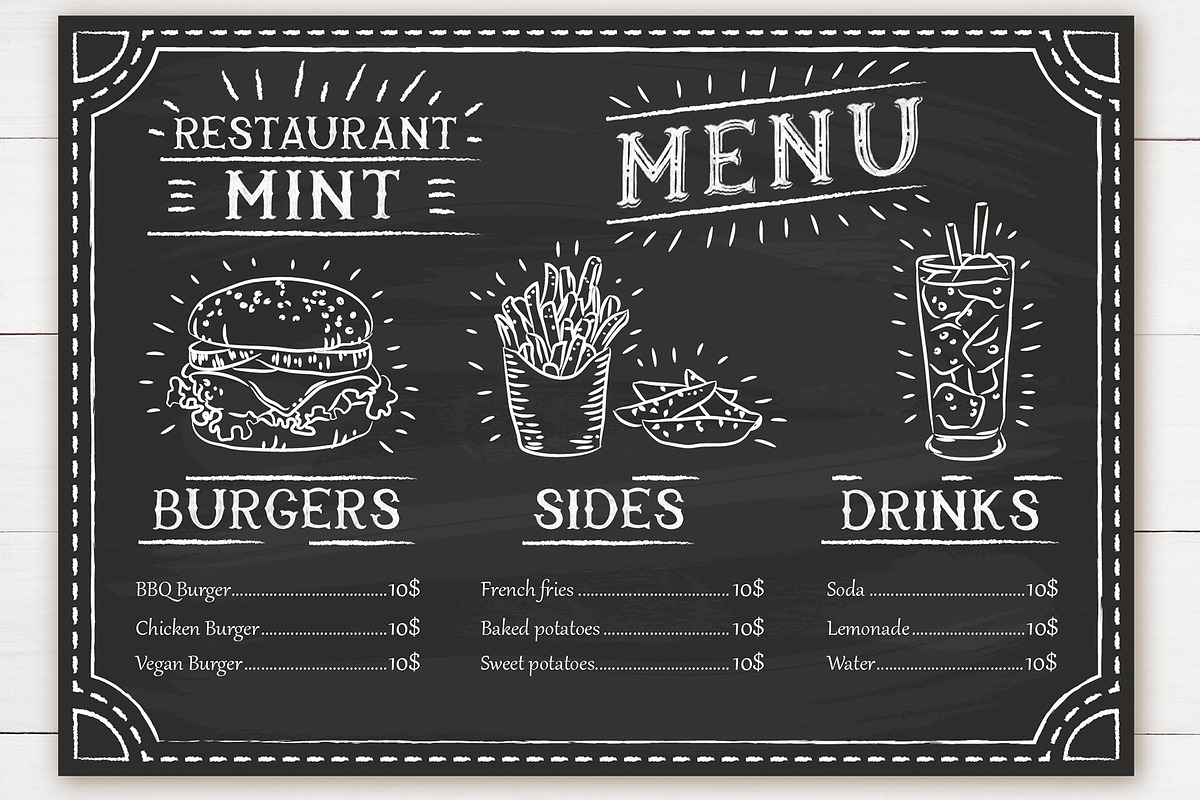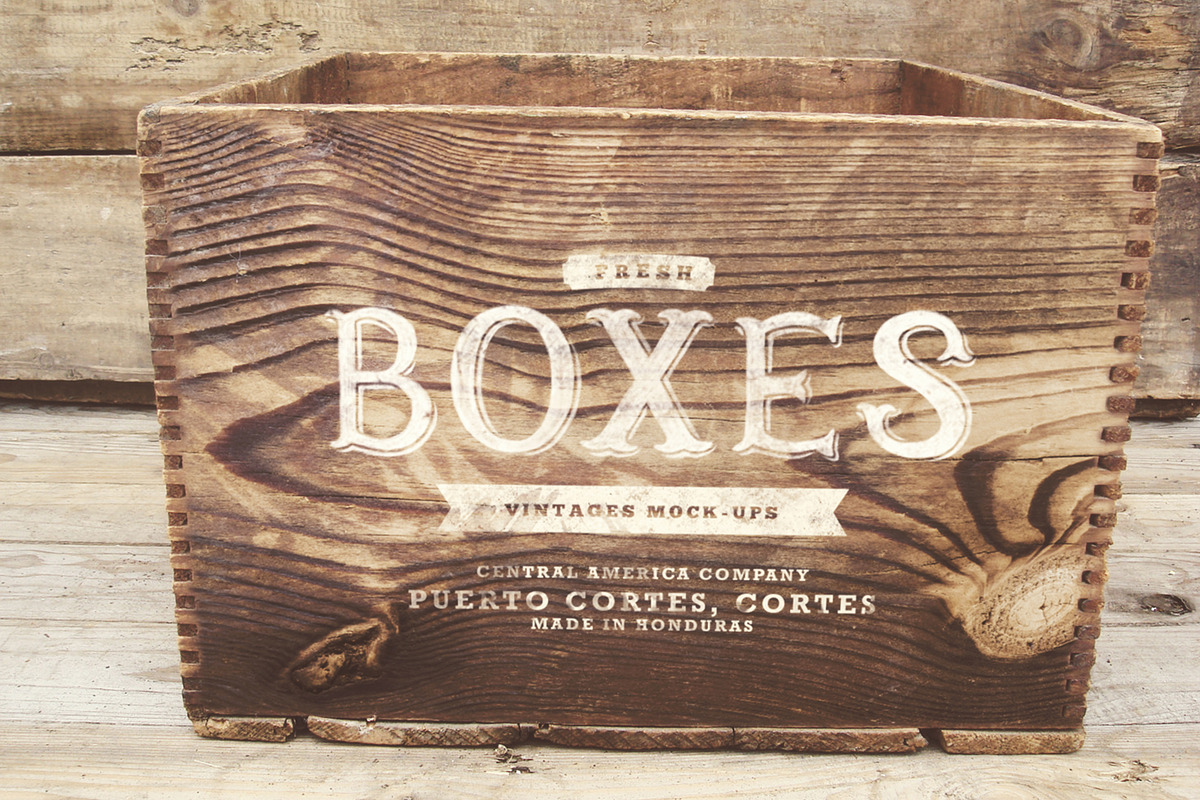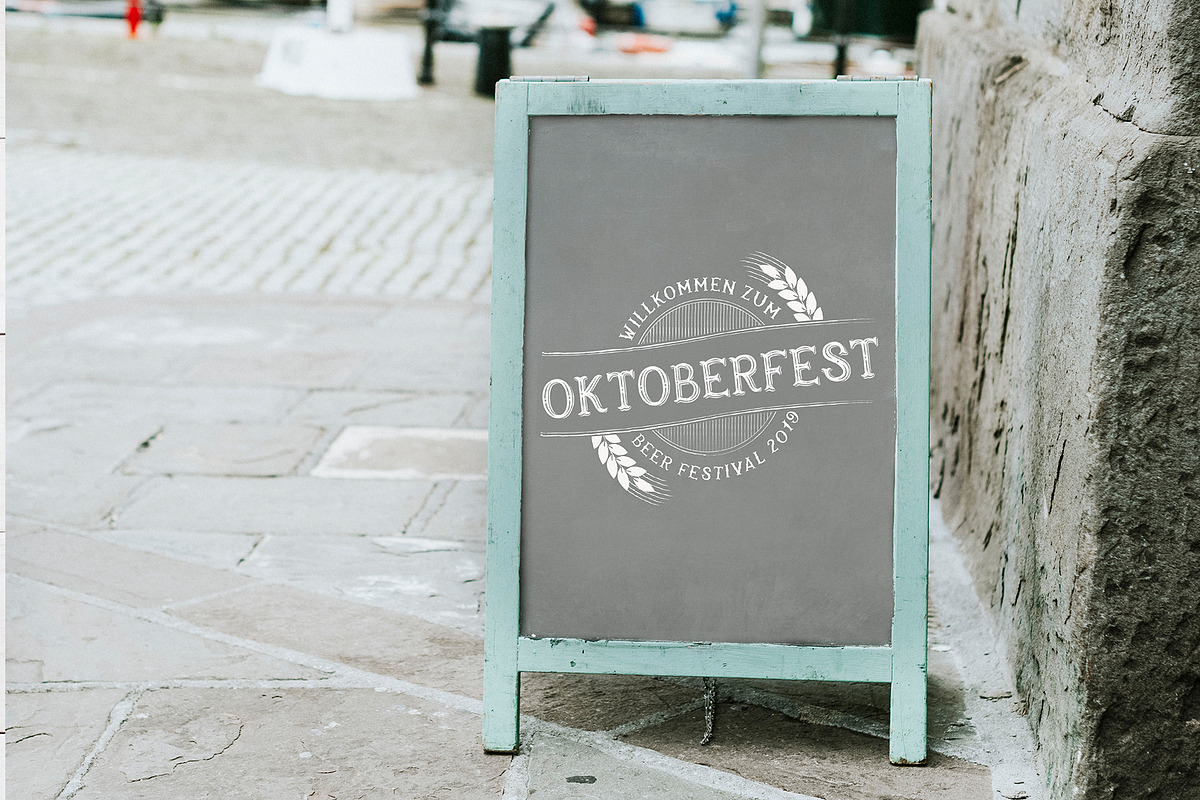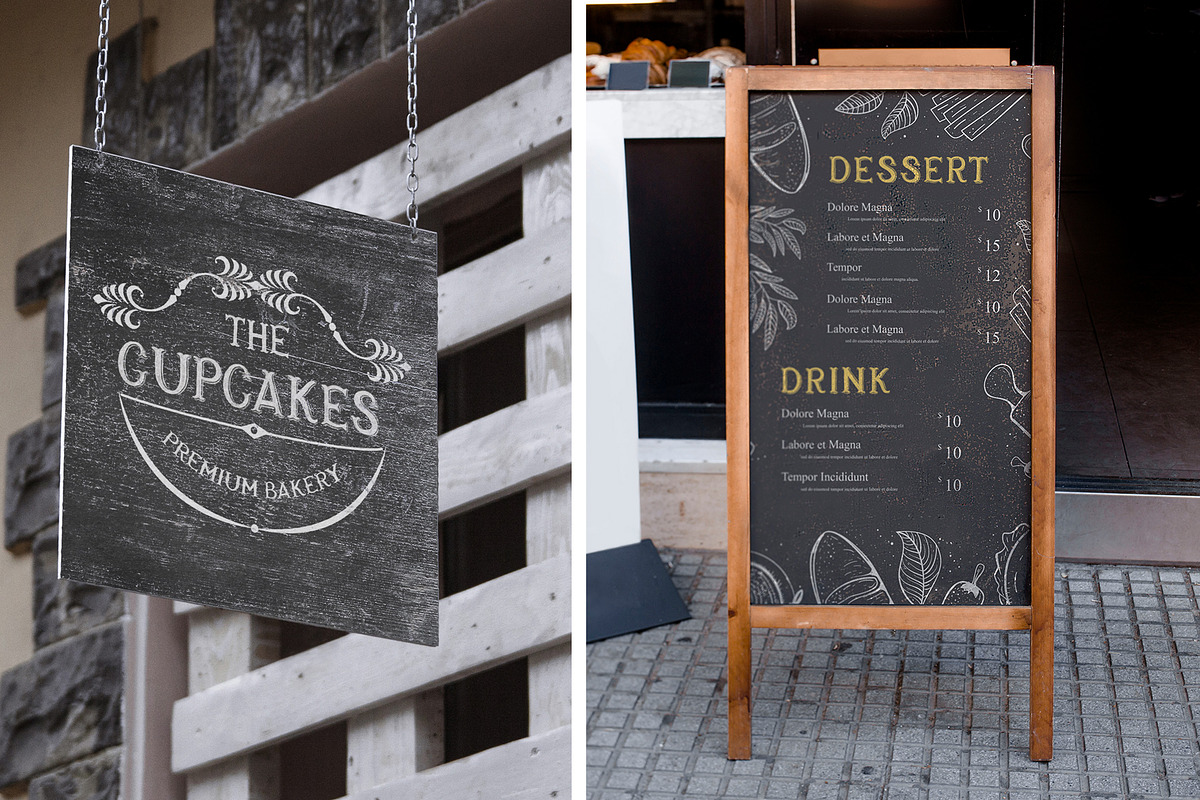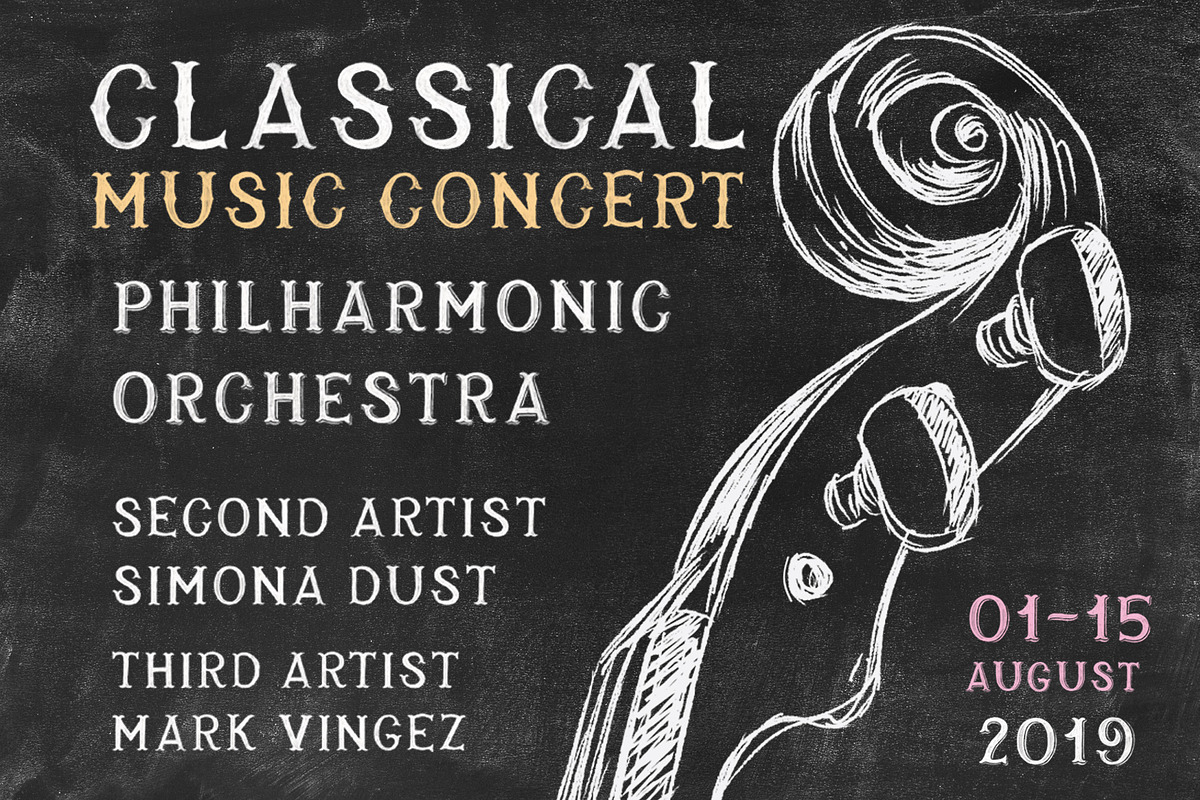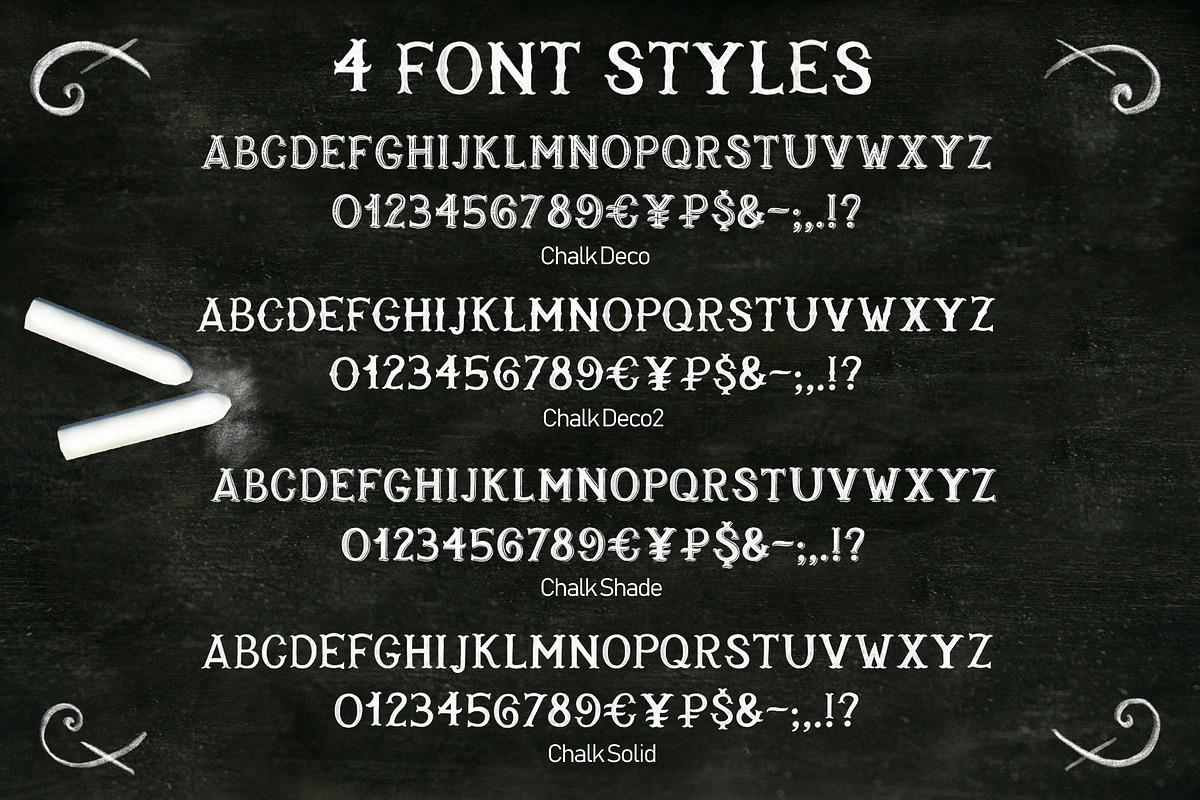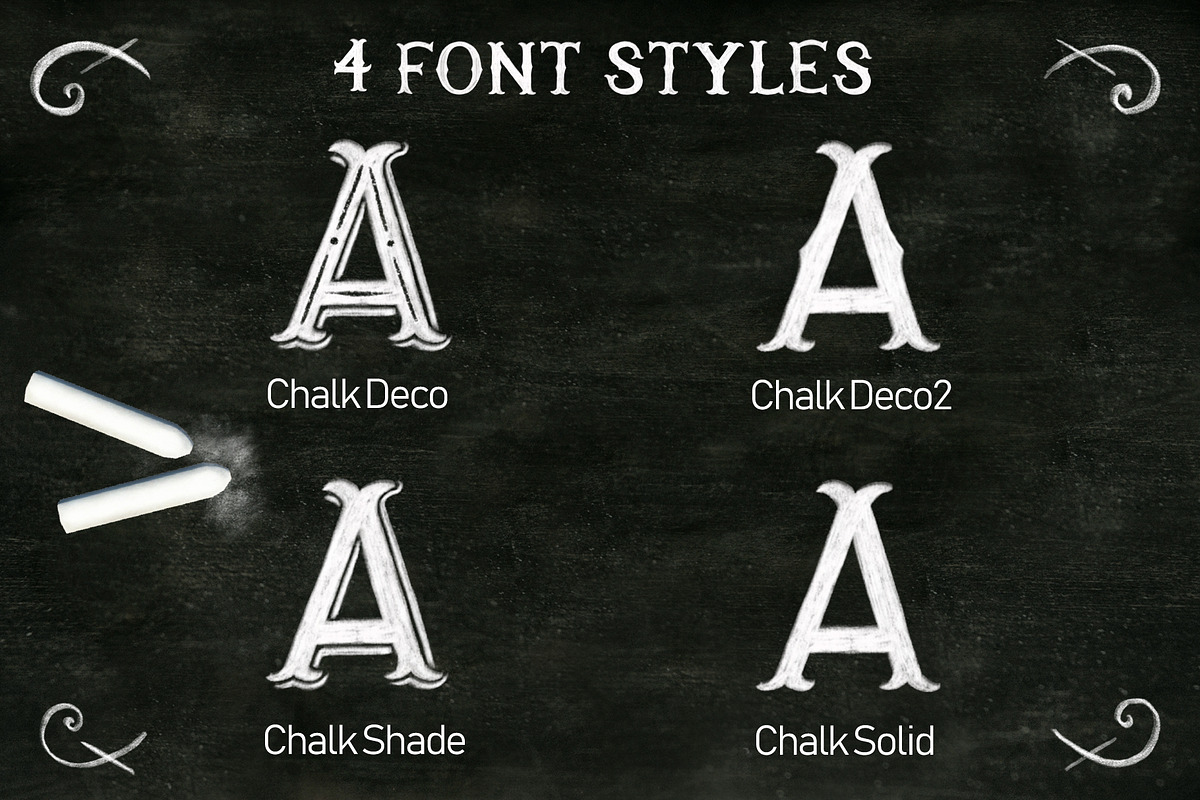
Chalk SVG font
Chalk SVG font - designing quotes with chalk easier!
Chalk SVG font is a hand-lettering font with high-definition chalk textures, completely built into the font as a transparency. What makes Chalk SVG font so special is that it comes in 4 different styles: Solid, Shape, Deco, Deco2.
Whether you're a lettering artist, a designer or not, designing quotes with chalk and want to create a composition with letters on the chalkboard, I care about every aspect of your design process and want to make it better and easier with my new font. Now you don't have to build each letter according to the rules, make it a separate design, apply the texture of chalk. I created set of textured fonts that with the touch of a finger solve this problem.
Chalk SVG font by Alisovna fits naturally into Branding, posters, packaging, typography.